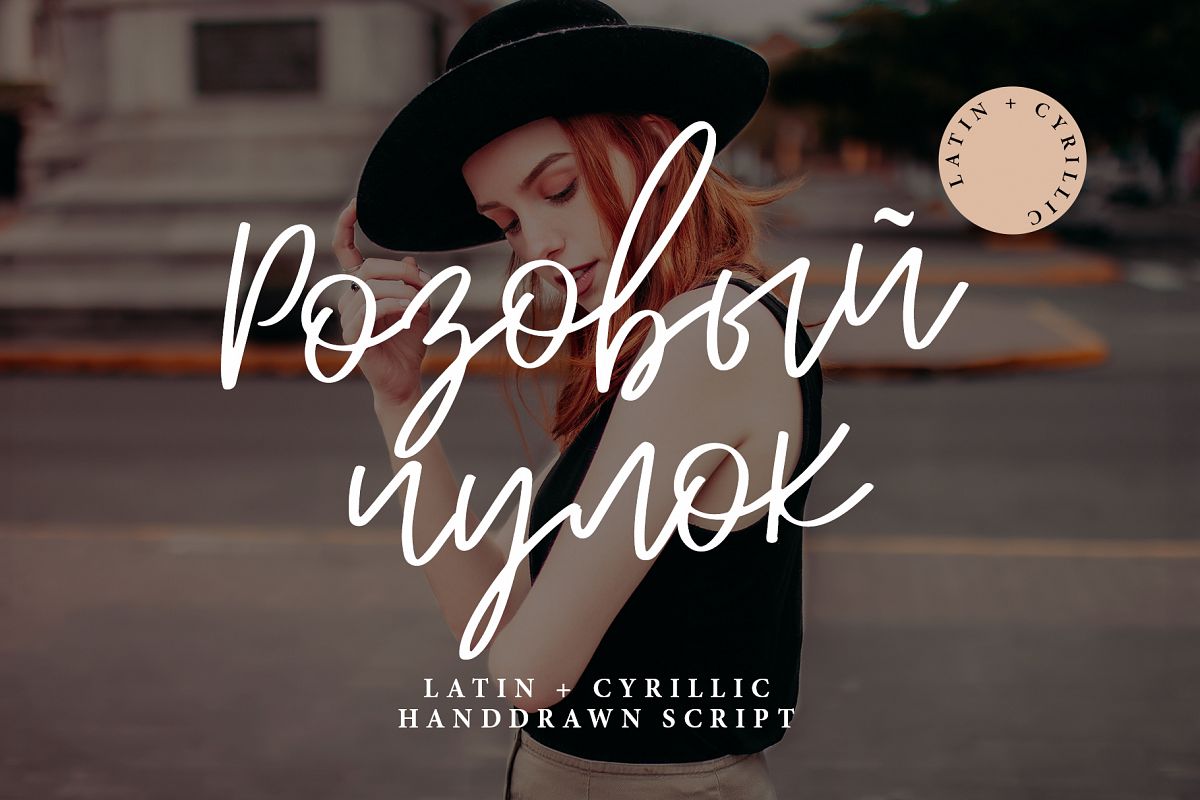
ROZOVII CHULOK Cyrillic handwritten font
Includes full set of lovely uppercase and lowercase letters, multilingual symbols, numerals and punctuation. This is so perfect for invitations, monograms etc
• Support ALL European Languages